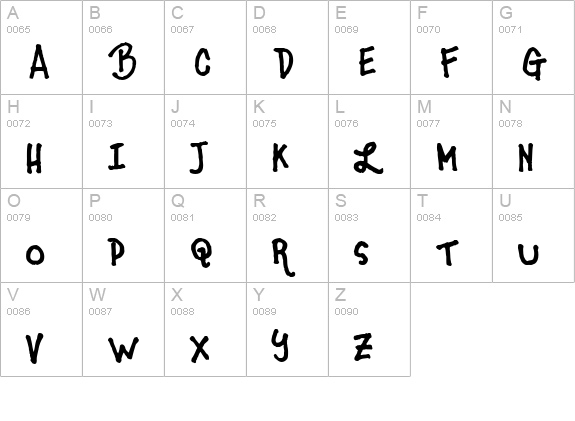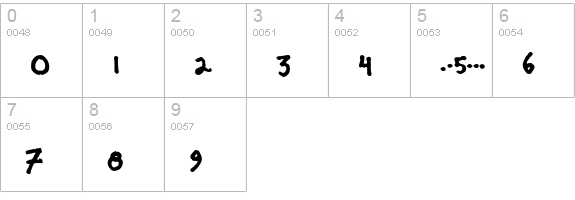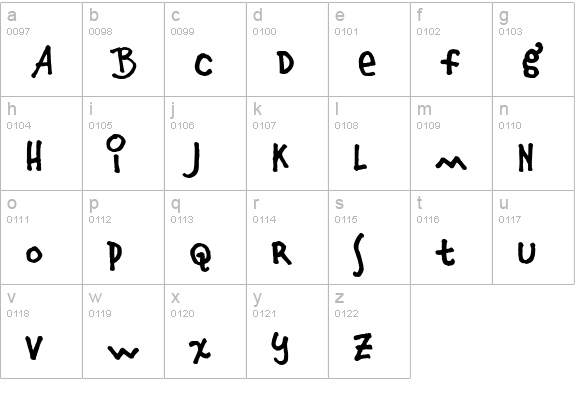
Fridayluck font is a charming and playful typeface that exudes a sense of whimsy and fun. With its unique design and quirky details, this font is perfect for adding a touch of personality to any project. The rounded edges and slightly uneven strokes give it a handcrafted feel that is both modern and approachable. What makes Fridayluck font even more appealing is that it is available for free download at FontsMarket.com. Whether you're working on a creative project, designing invitations, or simply looking to add a bit of flair to your text, Fridayluck font is a fantastic choice. So go ahead and give your designs a boost with this delightful and freely available font today!